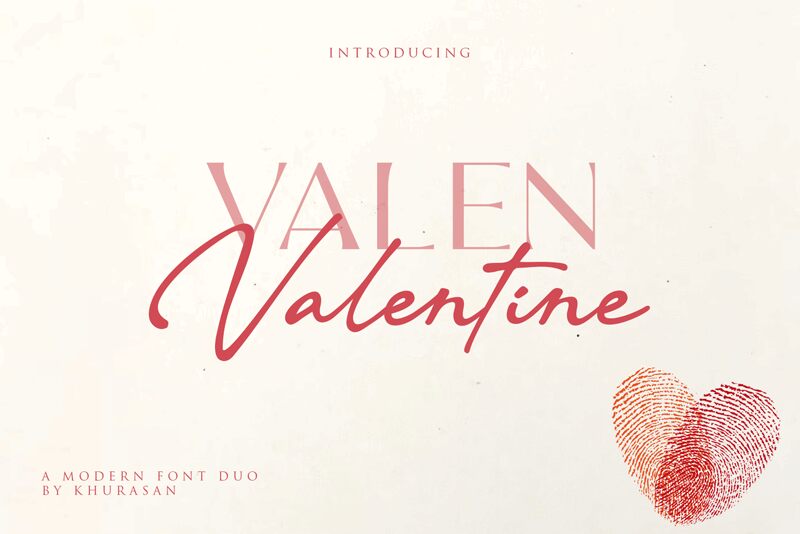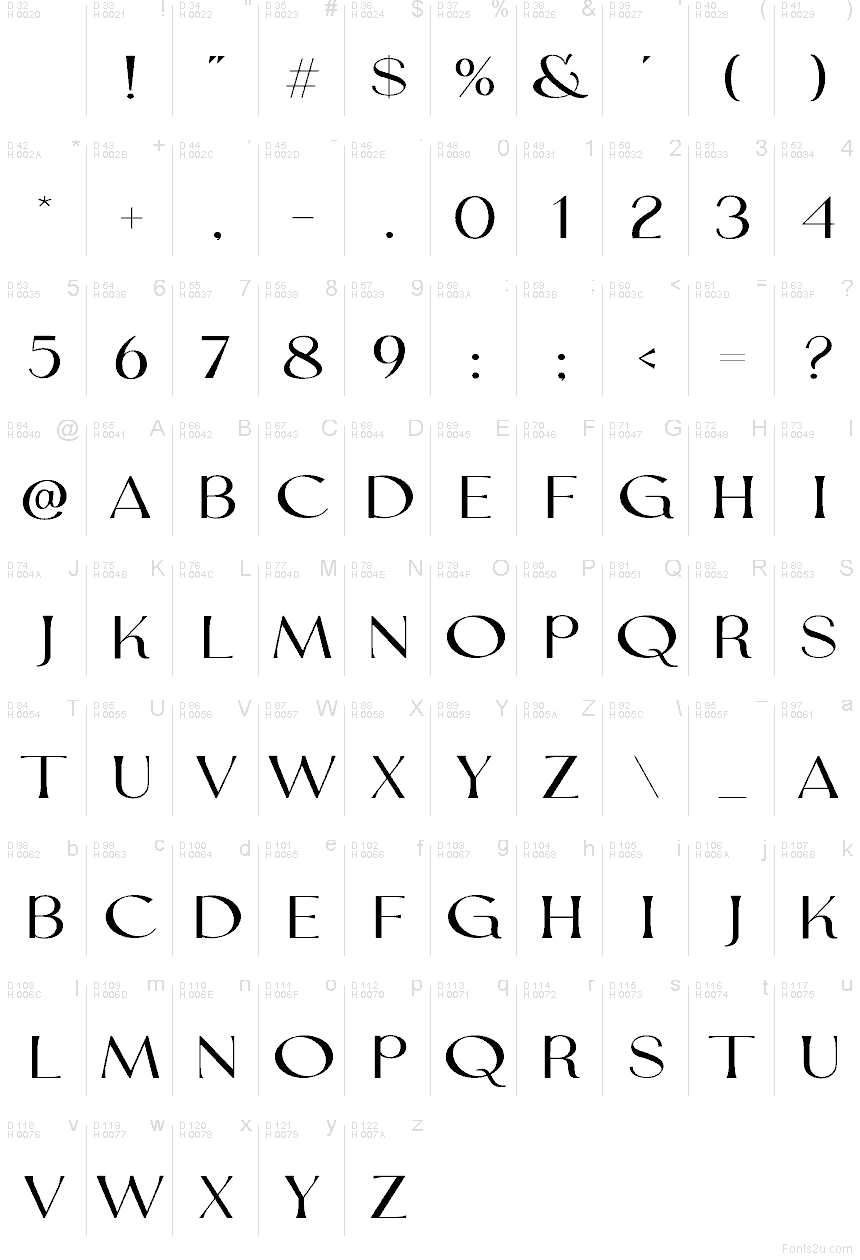
Valen Valentine Serif
Valen Valentine Serif font by Khurasan is a free romantic serif typeface from the Valen Valentine family, drawn with slim verticals and delicately pointed serifs that feel like ink strokes from a fine pen. Its tall, graceful proportions and airy spacing give every word a sense of ceremony, turning even short phrases into something that feels special and carefully composed.
Using Valen Valentine Serif, you can bring an elegant mood to wedding invitations, save-the-dates, boutique or florist branding, chocolate and perfume packaging, greeting cards, and soft editorial headlines. This free font shines when set larger, where its refined details can breathe, and it pairs beautifully with a clean geometric sans for supporting text or captions.